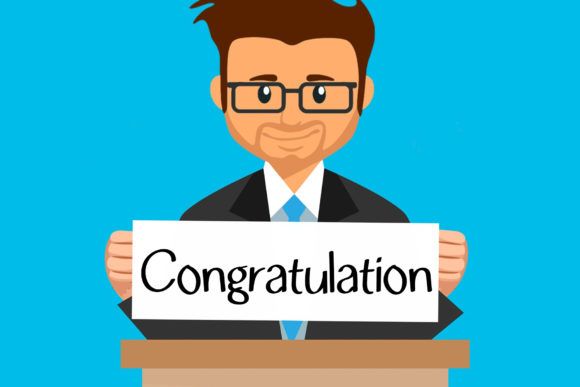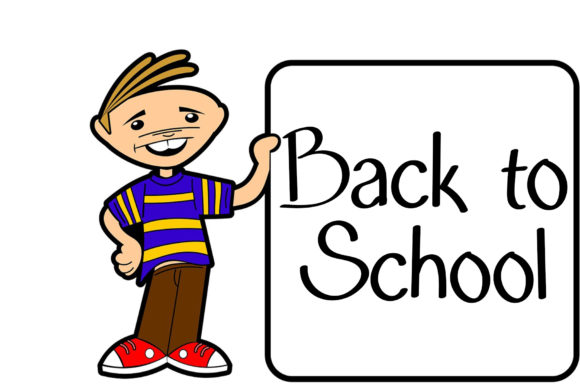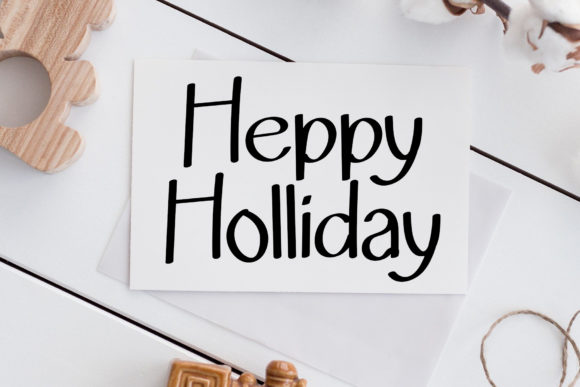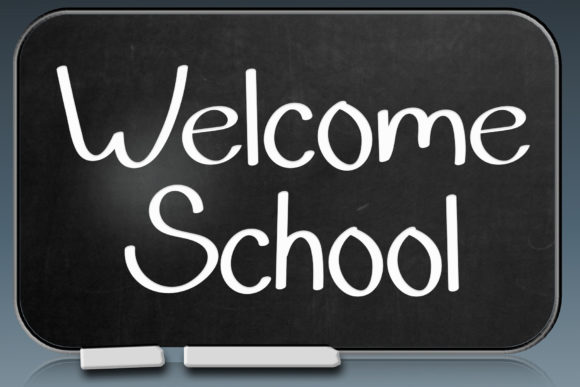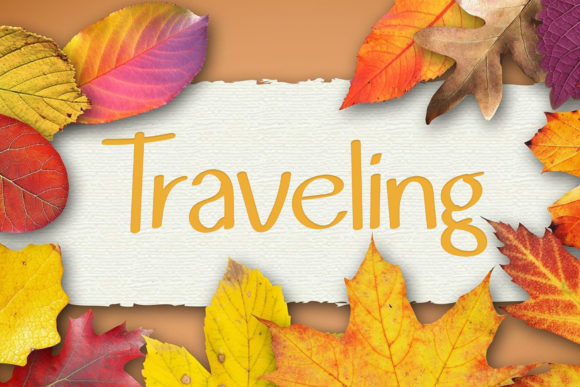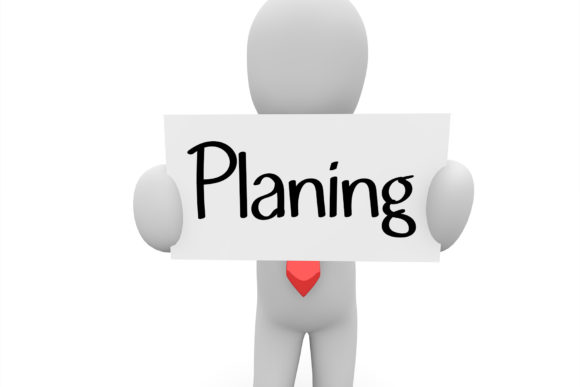
Introducing Black Book Font: The Ultimate Display Font for Creative Projects
Are you a designer or crafter looking for a font that can add a touch of playfulness and cuteness to your projects? Look no further than Black Book Font! This simple yet effective display font is perfect for creating eye-catching logos, branding, and quotes that will leave a lasting impression on your audience.
What Makes Black Book Font So Special?
Black Book Font is a unique and versatile font that is designed to be both cute and playful. Its simplicity makes it easy to read and understand, while its bold and striking appearance ensures that it grabs attention. Whether you’re working on a logo, branding, or quote, Black Book Font is the perfect choice.
One of the best things about Black Book Font is its flexibility. It can be used in a variety of contexts, from digital designs to print materials. Whether you’re creating a business card, brochure, or social media post, Black Book Font will add a touch of personality and whimsy to your design.
Why Choose Black Book Font for Your Projects?
So why should you choose Black Book Font for your projects? Here are just a few reasons:
- Eye-catching design: Black Book Font is designed to grab attention and make a statement. Its bold and striking appearance ensures that your designs will stand out from the crowd.
- Playful and cute: Black Book Font has a playful and cute personality that is perfect for brands and designers who want to add a touch of whimsy to their designs.
- Easy to read: Despite its bold appearance, Black Book Font is easy to read and understand. This makes it perfect for use in quotes, logos, and branding.
- Versatile: Black Book Font can be used in a variety of contexts, from digital designs to print materials.
How to Use Black Book Font in Your Projects
Using Black Book Font in your projects is easy! Here are a few tips to get you started:
- Use it for headings: Black Book Font is perfect for use in headings and titles. Its bold appearance ensures that it will grab attention and draw the eye.
- Add it to your branding: Black Book Font is a great choice for branding and logos. Its playful and cute personality makes it perfect for brands who want to add a touch of whimsy to their designs.
- Use it in quotes: Black Book Font is easy to read and understand, making it perfect for use in quotes and sayings.
- Experiment with different colors: Black Book Font looks great in a variety of colors. Experiment with different colors and combinations to find the one that works best for your design.
In conclusion, Black Book Font is a simple, cute, and playful display font that is perfect for creating eye-catching logos, branding, and quotes. Its versatility, flexibility, and bold appearance make it a great choice for designers and crafters who want to add a touch of personality to their designs. So why not give Black Book Font a try? You won’t be disappointed!
Black Book Font is the best choice for creating eye-catching logos, branding and quotes. Add it confidently to your projects, and you will love the results.